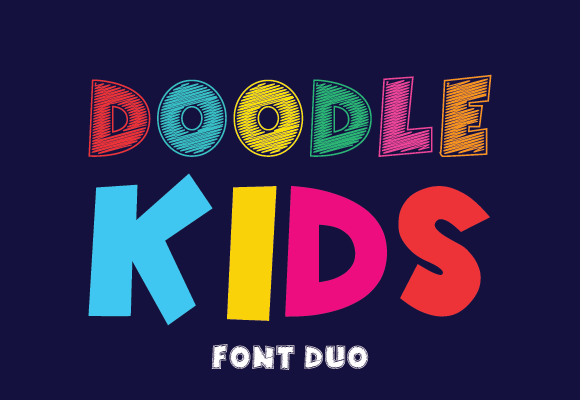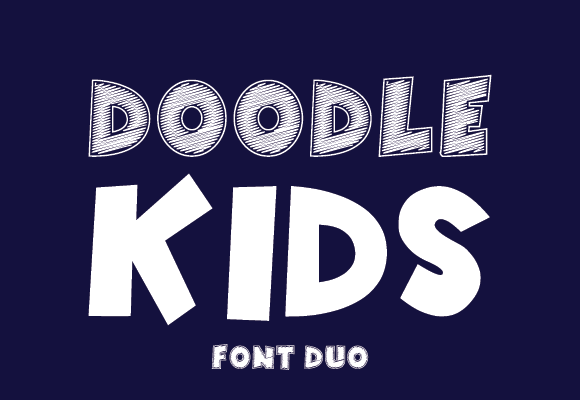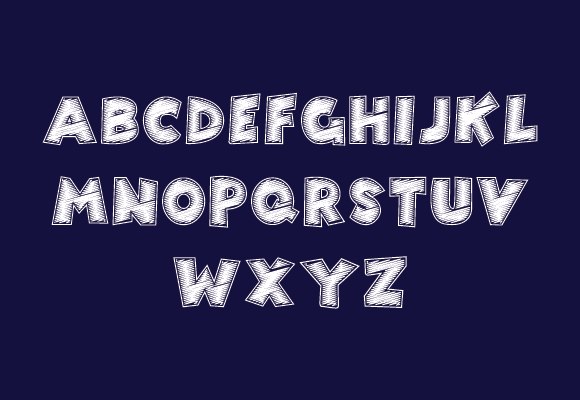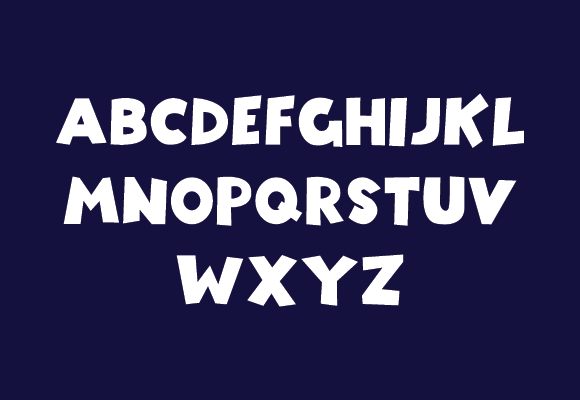
Doodle Kids Font
About the Doodle Kids Font
Add a touch of class to your work with the Doodle Kids Font, a truly exceptional typeface. Doodle Kids is a fun and friendly display font. Whether you are using it for cartoon-related designs, children games, quotes, titles, brand names, book covers, posters, or just any creation that requires a touch of joy, this font is a great choice.
Doodle Kids thrives in display applications such as logos, headlines, and short bursts of text on posters or packaging. Its playful nature makes it ideal for children’s products, educational materials, and brands targeting a young audience. Avoid using it for body copy or lengthy text; its informal style is not legible enough for extended reading.
Pairing Doodle Kids with a clean sans-serif like Open Sans for body text creates a strong visual hierarchy. For a more sophisticated feel, consider pairing it with a delicate serif font like Lora, which provides a contrast in weight and formality. Avoid pairing it with other highly decorative fonts, as this can create visual clutter.
The font’s personality is undeniably playful and friendly, conveying a sense of lighthearted fun. This makes it well-suited to projects that require a sense of whimsy and approachability.
Doodle Kids Font Usage Examples
Doodle Kids Font Example